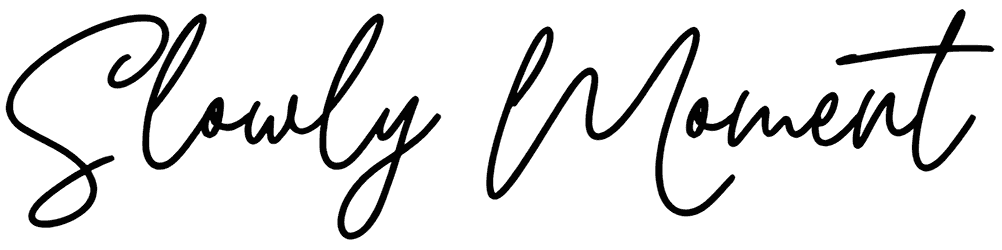
Slowly Moment Font
Slowly Moment is a script font that is masterfully crafted based on handwritten text to make your graphic content such as posters, gift cards, invitations, diplomas, and flyers look more personalized to the audience.
This handwritten font comes with a cursive style that dances along the baseline, so you can establish a sense of precision, softness, delicacy, or dynamic in your artwork. Needless to say that numbers and punctuations are not included in this masterpiece.